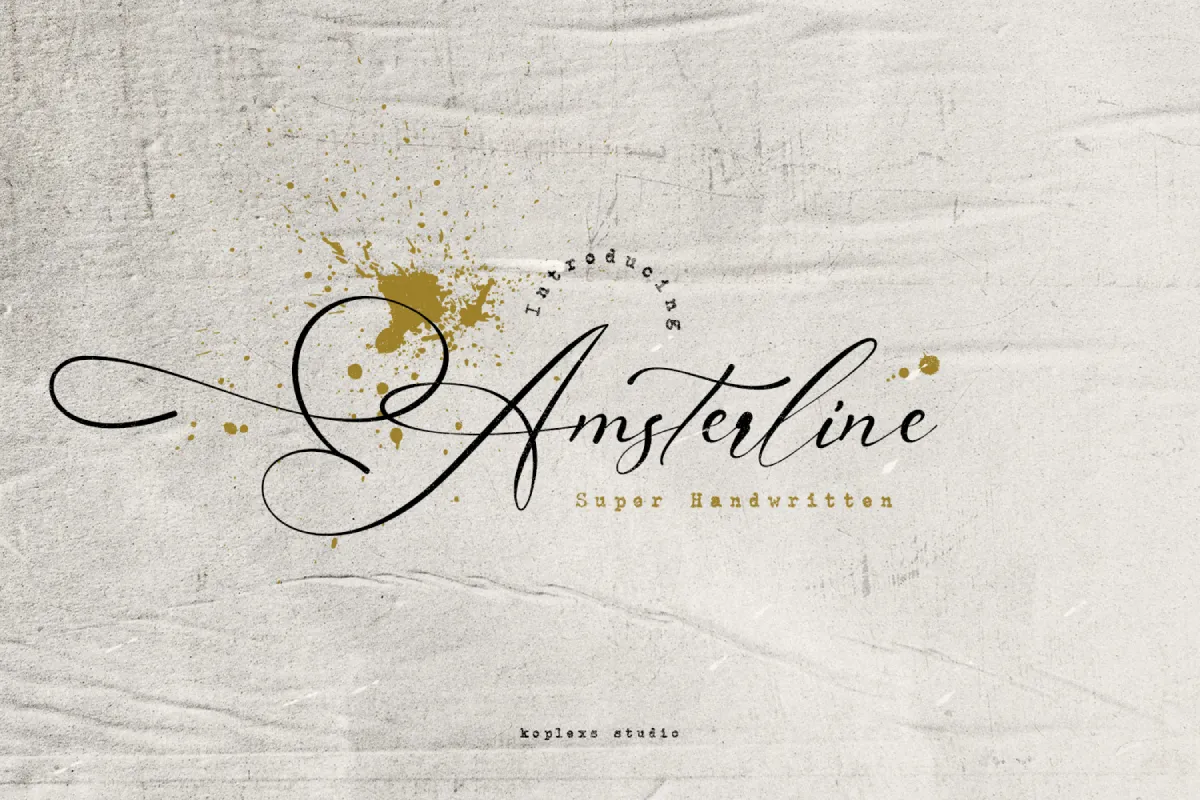
Amsterline Font – Elegant Handwritten Script for Branding, Logos & Wedding Design
Amsterline Font is a beautifully crafted Script Font that blends modern sophistication with timeless charm. Designed with smooth curves and refined strokes, this Handwritten Font is perfect for those who want to add a personal yet professional touch to their creative projects.
Whether you’re working on a Wedding Font, a Branding Font, or creating a Logo Font, Amsterline brings an Elegant Font style that instantly elevates your design. Its flowing Calligraphy Font style makes it not only an Aesthetic Font but also a versatile choice for multiple industries—ideal for fashion, lifestyle, beauty, and Cosmetic Fonts.
As one of today’s Modern Fonts, Amsterline effortlessly balances Luxury Font appeal with readability, making it the go-to choice for both digital and print projects.
Amsterline Font Perfect for :
- Wedding invitations & stationery
- Logo and branding projects
- Fashion & cosmetic packaging
- Social media posts & quotes
- Greeting cards & aesthetic posters
- Editorial layouts & luxury magazines
✨ Key Features:
- Smooth handwritten calligraphy style
- Elegant and modern curves for versatility
- Perfect balance between luxury and readability
- Works beautifully in both large and small text
With its timeless elegance and modern touch, Amsterline Font ensures that your designs always stand out with sophistication.